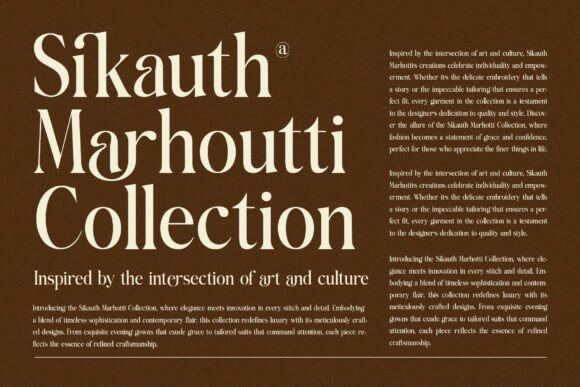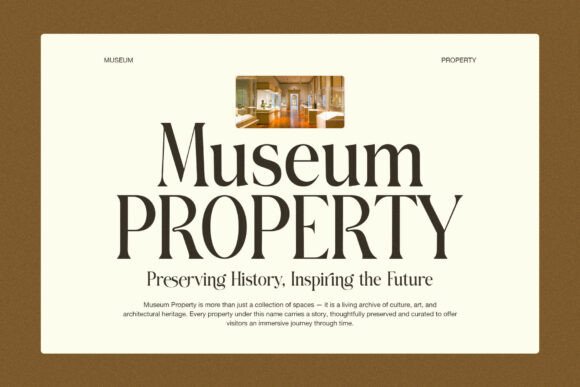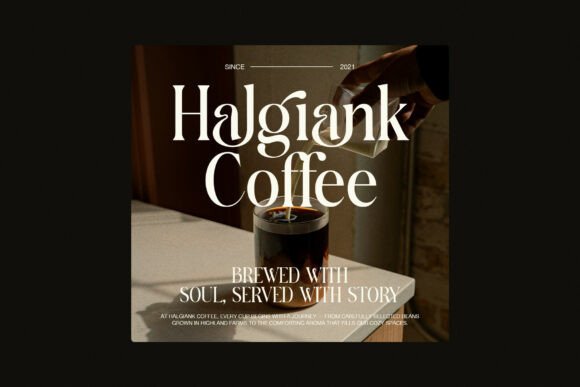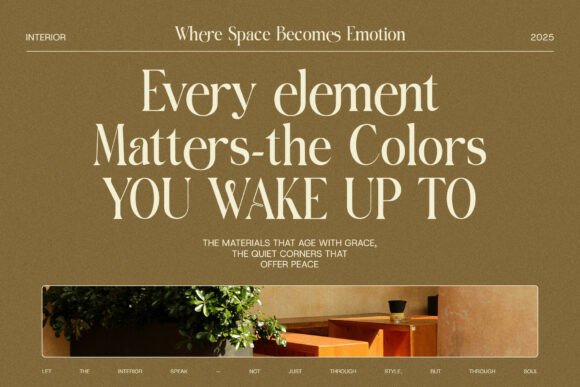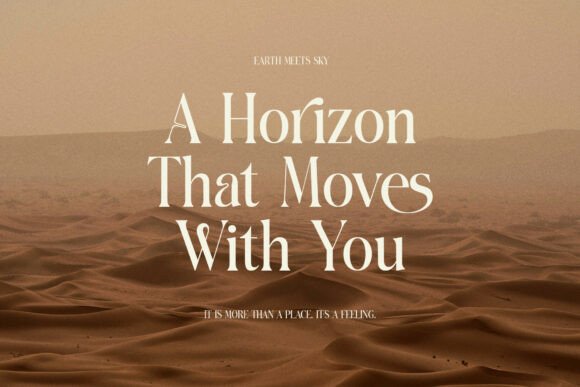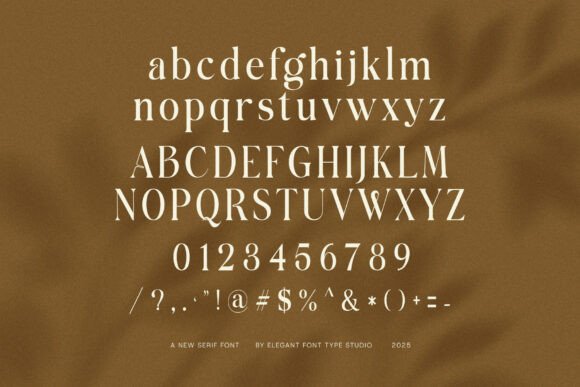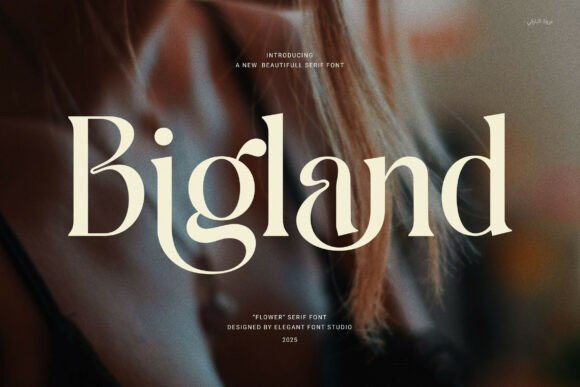
The Bigland Font: A Modern Serif Typeface for Timeless Designs
I’ll never forget the struggle I faced while working on a project for a high-end client. I was tasked with creating elegant, readable text for both print and digital platforms. The challenge? Finding the perfect font that exuded sophistication without sacrificing legibility. That’s when I stumbled upon the Bigland font, and it changed the game. In this article, I’ll share my experience with Bigland, its features, and how to make the most of this beautiful typeface.
An Honest Review of Bigland Font
What I Love About Bigland ✨
- ✅ Timeless charm: Bigland’s modern serif design brings a touch of classic elegance to any project.
- ✅ Clean structure: The font’s smooth curves and sharp lines create a sophisticated look that’s both readable and visually appealing.
- ✅ Functional ligatures: Bigland’s ligatures ensure smooth text flow, making your work appear more thoughtful and professional.
- ✅ Proportional design: The font maintains a strong visual balance, making it perfect for large headlines and smaller body text.
While Bigland is an excellent font, there are a few minor limitations to consider:
- 🤔 Limited availability of weights: Bigland might not offer as many weights as some other fonts, which could limit its use in certain design scenarios.
- 🤔 Requires OpenType support: To take full advantage of Bigland’s features, you’ll need to use it in software that supports OpenType.
The Story Behind Bigland Font
Bigland was designed with care by a team of typographers who wanted to create a modern serif font that blends timeless charm with clean structure. Inspired by classic typography, Bigland’s designers aimed to create a font that’s both elegant and readable. The result is a beautiful typeface that’s perfect for designers, crafters, and creative hobbyists.
| Font Name | Bigland Font |
| Author | ElegantFont |
Q: What is Bigland font?
A: Bigland is a modern serif typeface designed for elegance and readability. It features smooth curves, sharp lines, and functional ligatures.
Q: Is Bigland suitable for both print and digital platforms?
A: Yes, Bigland is designed to be highly readable on both print and digital platforms, making it perfect for a wide range of design projects.
Q: Does Bigland support OpenType features?
A: Yes, Bigland supports OpenType features like ligatures, which can enhance the appearance of your text and make it more readable.